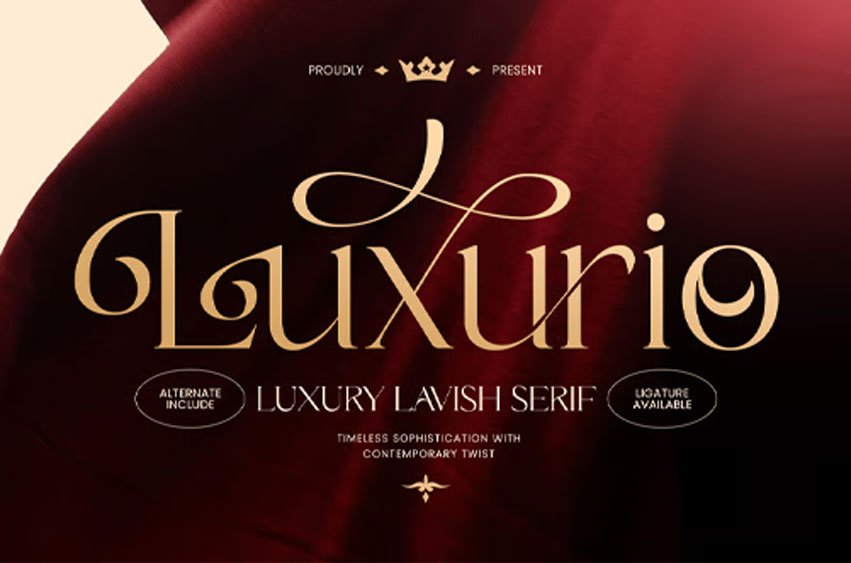
Luxurio Font is a modern luxury lavish serif font designed to express sophistication, prestige, and timeless elegance. Featuring refined serif details, graceful proportions, and luxurious character shapes, this typeface is ideal for premium branding, fashion campaigns, editorials, and upscale packaging.
Inspired by contemporary luxury aesthetics, Luxurio balances bold presence with delicate refinement. Its carefully crafted letterforms create a sense of exclusivity that elevates logos, magazine layouts, beauty branding, jewelry collections, and lifestyle products.
Whether used for luxury packaging, elegant invitations, fashion identities, or premium advertising, Luxurio delivers a polished and unforgettable visual experience across both digital and print media.
Luxurio – Modern Luxury Lavish Serif Font Features
- Elegant high-end serif design with luxurious detailing
- Perfect for fashion branding, editorials, logos, and premium packaging
- Sophisticated letterforms with timeless visual appeal
- Ideal for beauty, jewelry, lifestyle, and luxury industries
- Uppercase, lowercase, numerals, and punctuation included
- OpenType features for advanced typographic styling
Define luxury with confidence using Luxurio – the ultimate lavish serif font for premium branding, fashion, and elegant design.